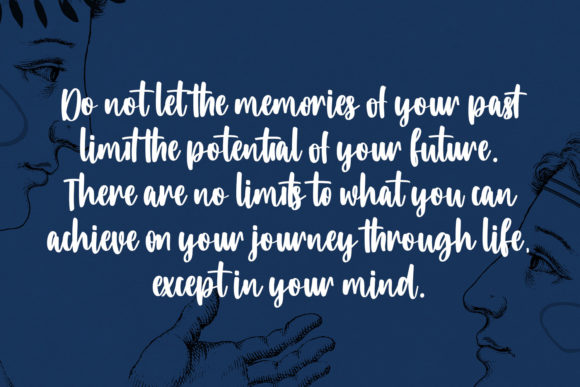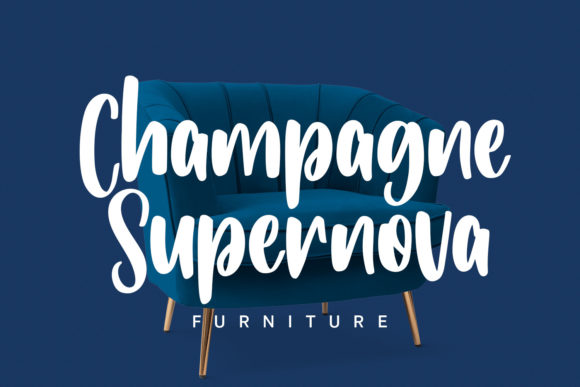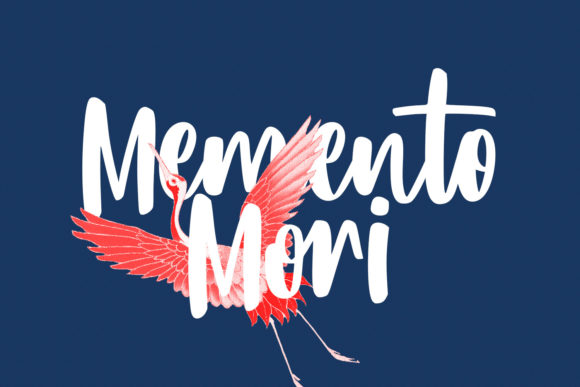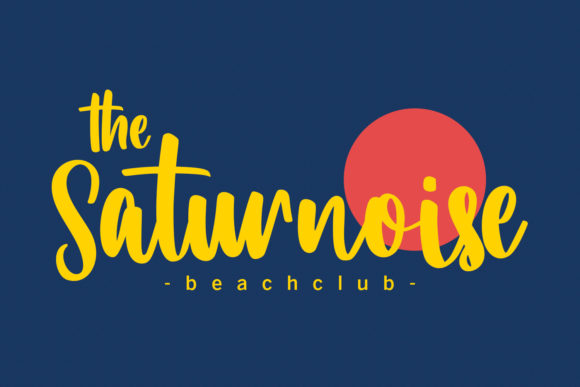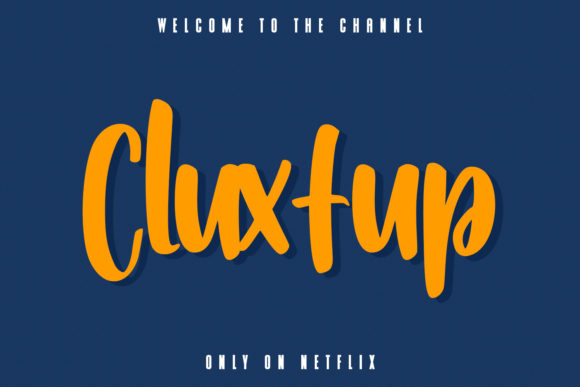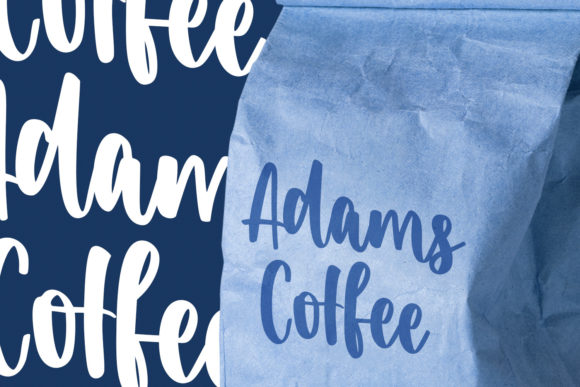
Introducing Adamslor Font: Elevate Your Designs with Elegance and Style
Are you a designer or crafter looking for a font that exudes elegance and sophistication? Look no further than Adamslor Font. This stunning script font is perfect for adding a touch of handmade charm to your designs, making it ideal for wedding invitations, thank you cards, quotes, greeting cards, logos, business cards, and more.
What Makes Adamslor Font So Special?
Adamslor Font is a stylish and incredibly elegant script font that is sure to take your designs to the next level. Its unique and flowing script style gives it a distinctive look that is both modern and classic. The font’s elegant lines and curves make it perfect for creating beautiful and eye-catching designs that will leave a lasting impression.
Wedding invitations, save the dates, and thank you cards are just a few examples of where Adamslor Font shines. Its romantic and whimsical feel makes it perfect for capturing the magic of special occasions. Whether you’re designing for a wedding, baby shower, or other celebration, Adamslor Font is sure to add a touch of elegance and sophistication.
Adamslor Font is not just limited to wedding and event designs. Its versatility makes it suitable for a wide range of design projects, including:
- Quotes and typography art
Why Choose Adamslor Font?
So, what sets Adamslor Font apart from other fonts? Here are just a few reasons why designers and crafters love working with this font:
- Elegant and sophisticated: Adamslor Font has a unique and refined look that adds a touch of luxury to any design.
- Easy to read: Despite its elegant style, Adamslor Font is surprisingly easy to read, making it perfect for body text and quotes.
- Highly versatile: From wedding designs to business branding, Adamslor Font can be used in a wide range of projects.
- Unique and distinctive: Adamslor Font has a one-of-a-kind look that will set your designs apart from the crowd.
Tips for Using Adamslor Font
To get the most out of Adamslor Font, here are a few tips to keep in mind:
- Pair with contrasting fonts: Adamslor Font pairs beautifully with clean and simple fonts, such as sans-serif fonts like Arial or Helvetica.
- Experiment with colors: Adamslor Font looks stunning in a range of colors, from soft pastels to rich jewel tones.
- Play with textures and patterns: Add an extra layer of depth and interest to your designs by combining Adamslor Font with textures and patterns.